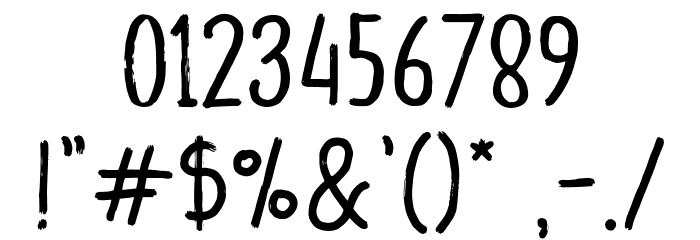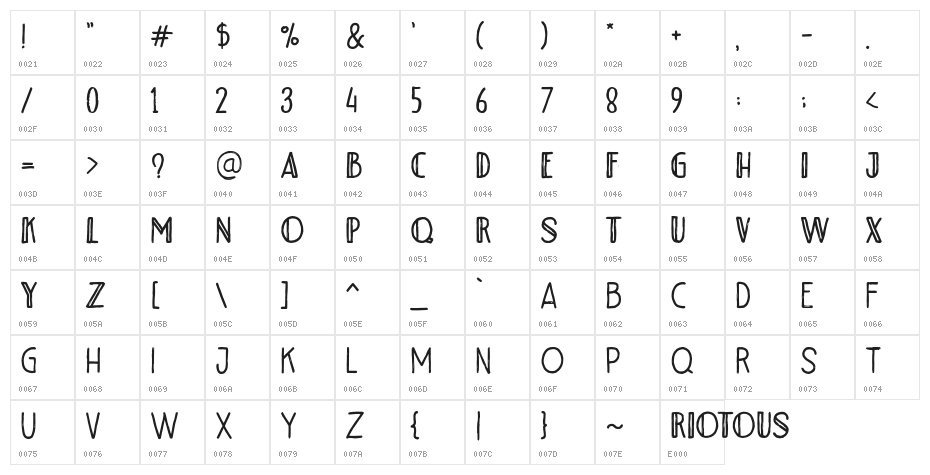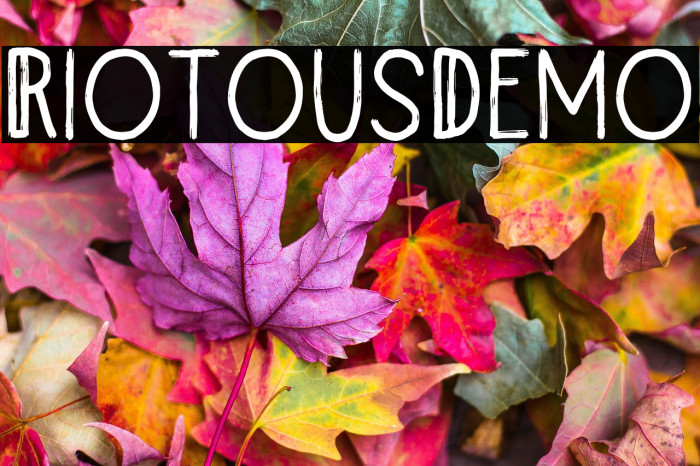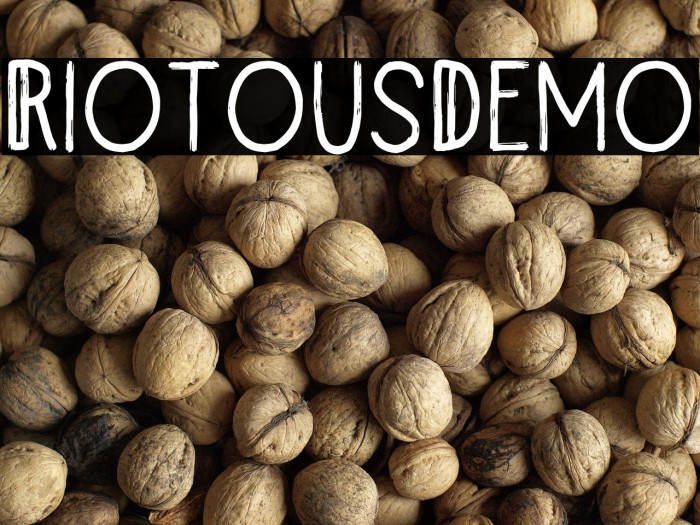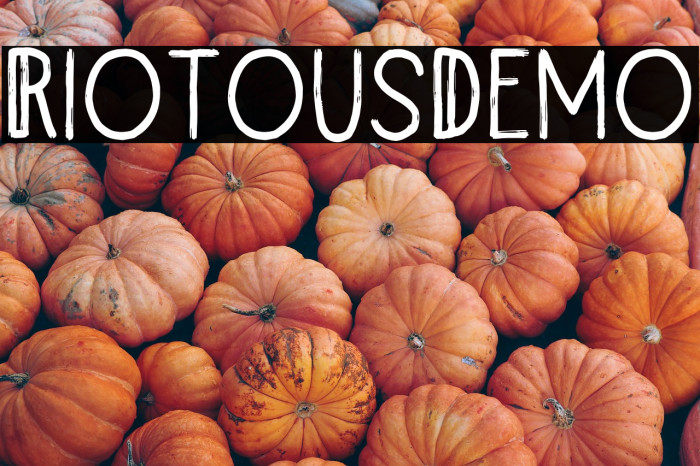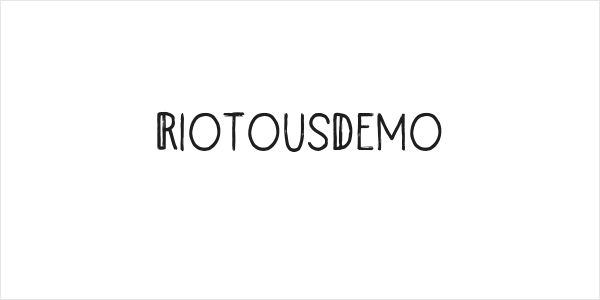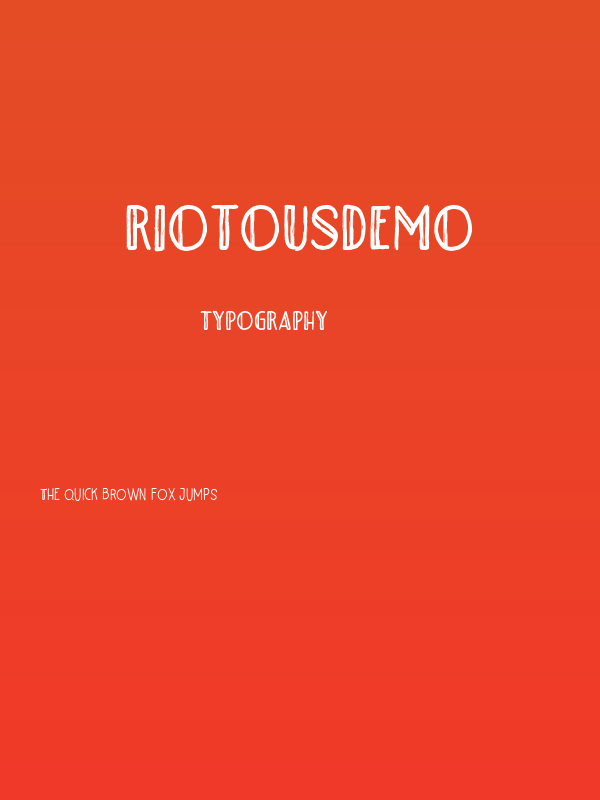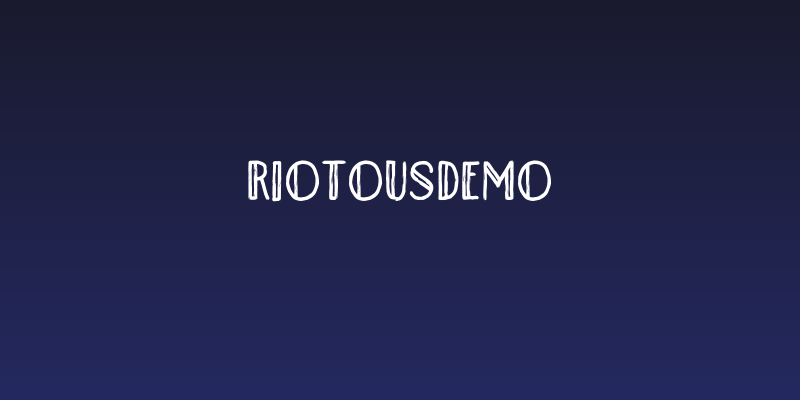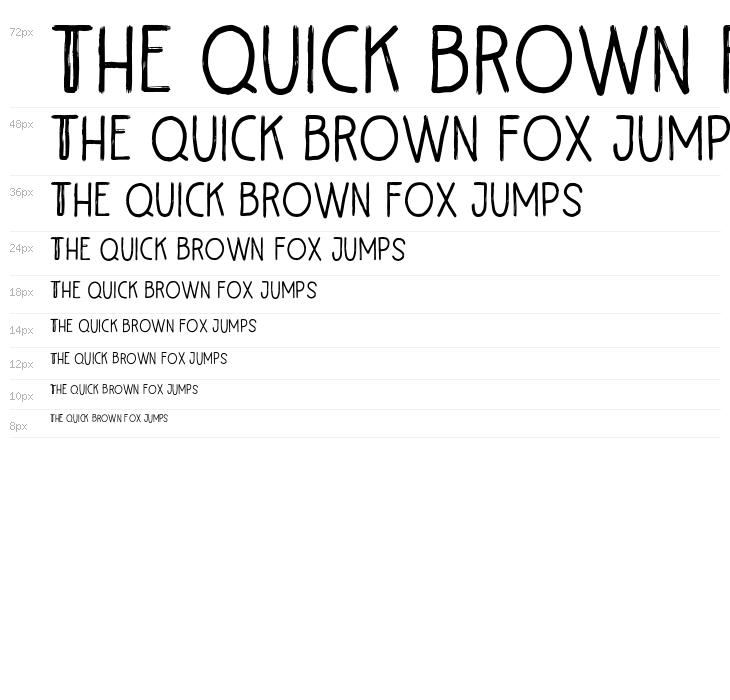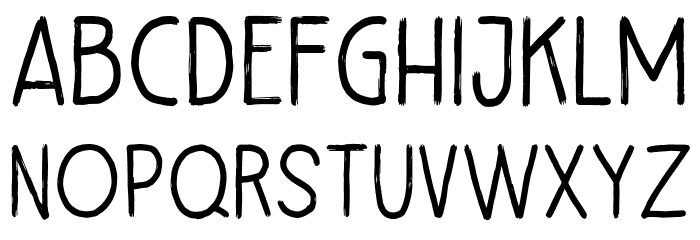
RiotousDemo Font
RiotousDemo Description
This font features a bold and expressive style with a hand-drawn appearance. The characters have a rough, textured finish that gives them a dynamic and energetic feel. The uppercase and lowercase letters maintain a consistent height, with slightly irregular edges that add to the handcrafted look. The numerals and special characters follow the same stylistic approach, ensuring a cohesive appearance across all glyphs. This font's unique character makes it suitable for projects that require a touch of creativity and individuality.
| Proposed Projects | Ideal for posters, album covers, artistic branding, and creative social media graphics. |